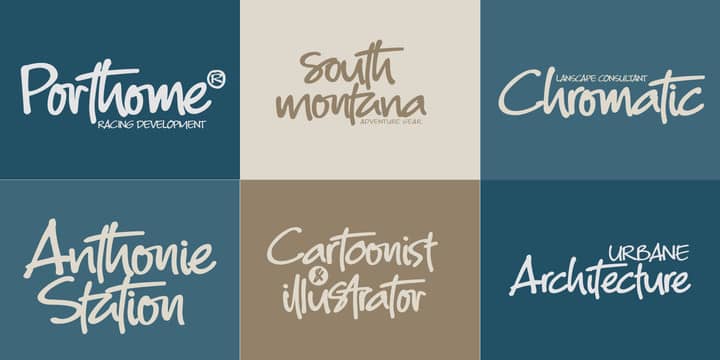
Kyoto Northern Font
Kyoto Northern Font is a gorgeous Script and Handwritten font. This typeface was handwritten with a marker pen and a ligature, following the practice of writing fast, so you may experience the natural feeling of handwriting. Your writing will appear great and flow smoothly if you write in a comfortable and tranquil manner. Kyoto is the name of the city we chose as a symbol of serenity and natural beauty. Feel the wonderful handwriting while you type.
Muhammad Ridha agusni developed the font, which is released by 38 lineart. KyotoNorthern is the full font name for this font. Kyoto Northern is the font’s family name. This typeface belongs to the Regular Sub-Family. The font almost has 257 Glyph such as Uppercase, Latin Lowercase, Latin Other, Cyrillic Uppercase, Cyrillic Lowercase, Greek Lowercase, Number, Punctuation, Symbol etc. Before installing the fonts, you must first extract them from the ZIP or RAR file, then: Go to Windows 10/8/7 and Install the Font by right-clicking on it. For OS X (Macintosh Operating System): Double-click the font file to install it. Lastly, Select “Install font” from the drop-down menu.
Kyoto Northern is an excellent choice for a brand identity since it is ideal for packaging, web banners, headlines, and business cards and is very original and natural. The typeface may simply be used to create stunning wallpaper and logos. This typeface can be used in any creative project.